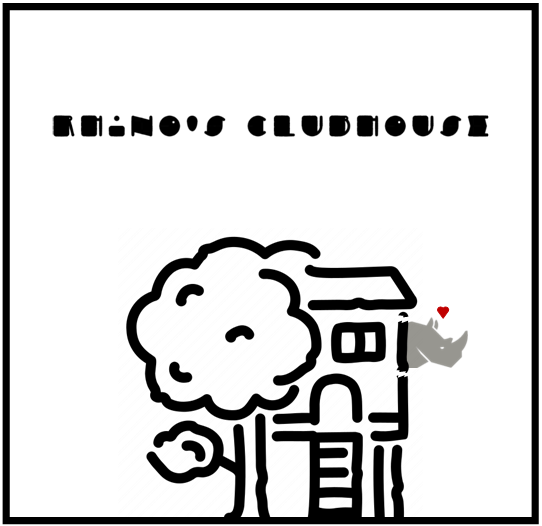
a chubby, chibi art deco font.
Yup, this is exactly the kindof work I would expect from you mate... It has that typical Art-Deco/hand lettering era feeling like all your fonts. Very nice contribution!
Lovely chunky art deco work!
Why Does The E Look Like The Capital Sigma
nudging, stacking and composites open up a world of possibilities KDDKFDKCDOC :)